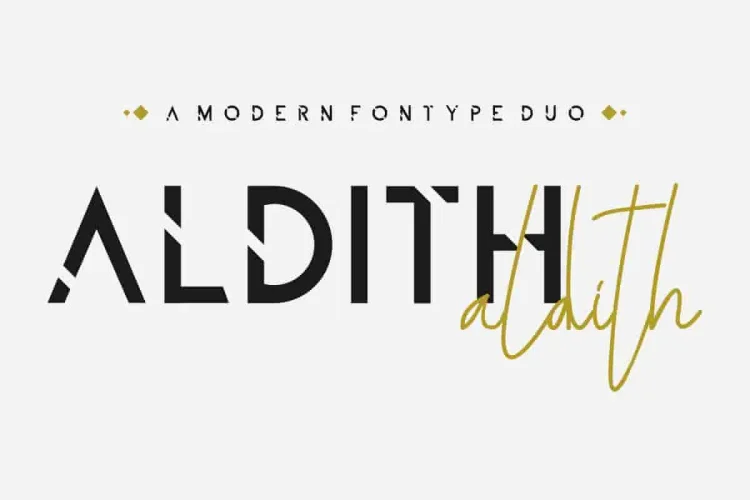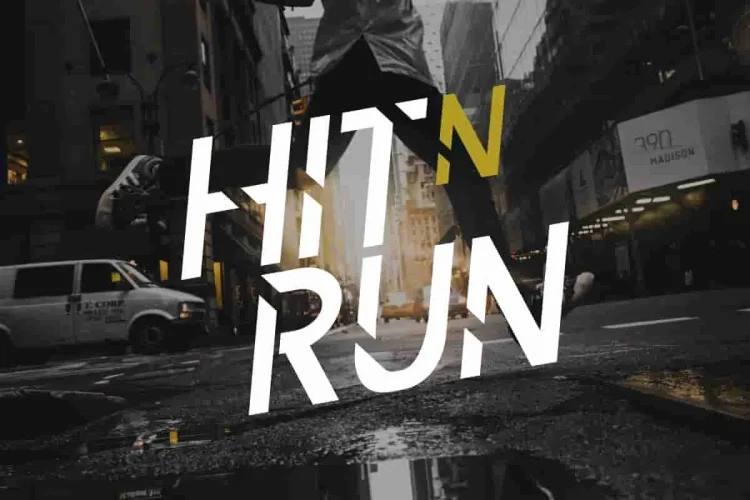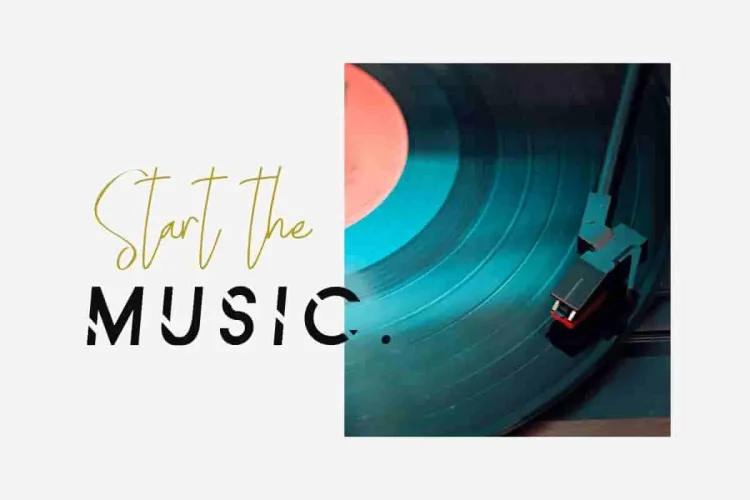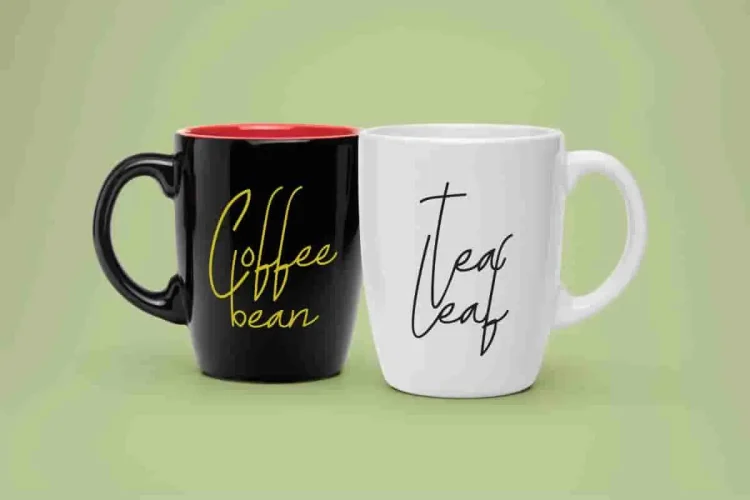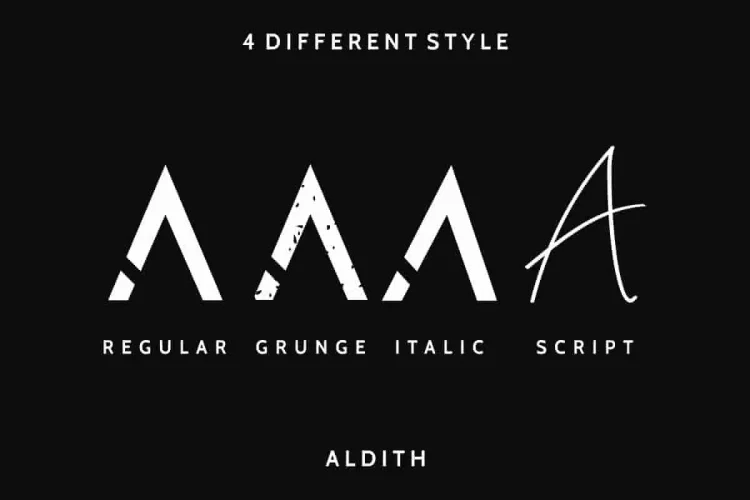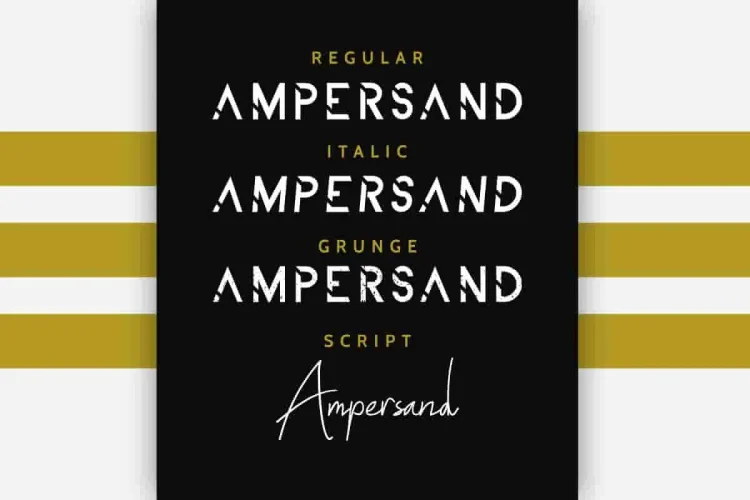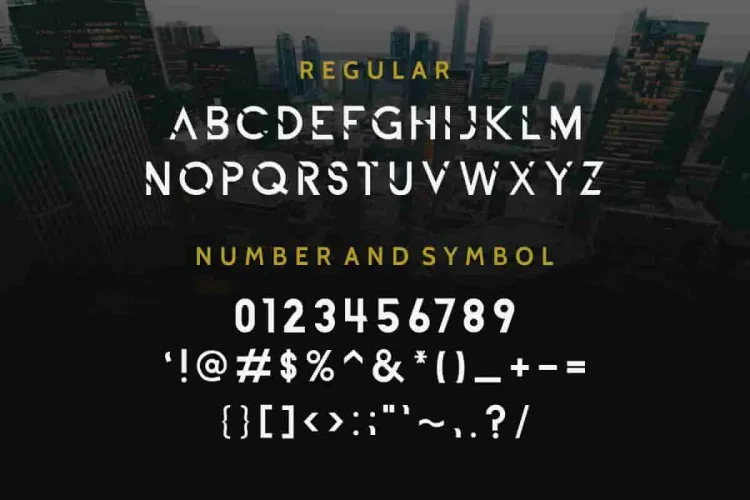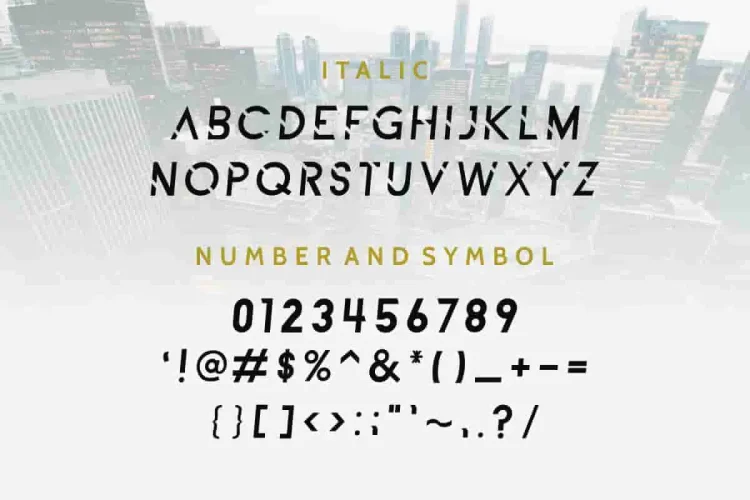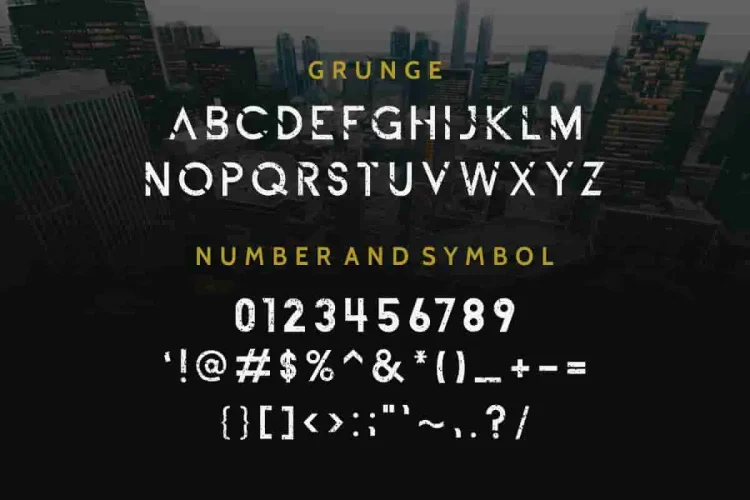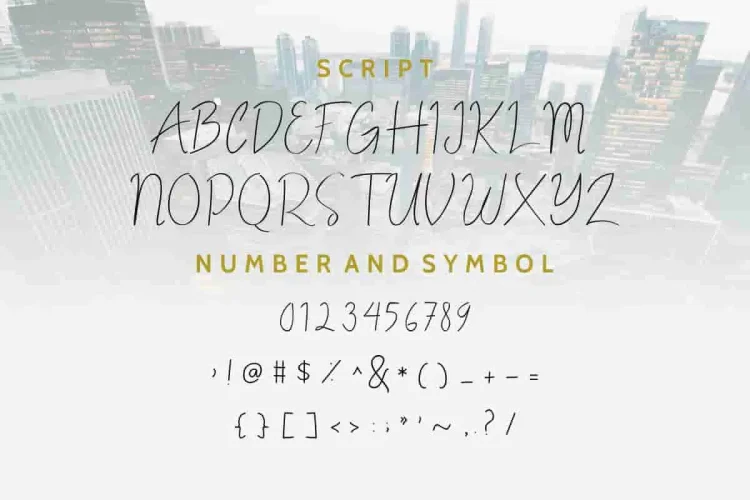
ALDITH Handwritten Font Duo
What’s up guys! Introducing our newest font : ALDITH ! It’s a QUARTET font! contains script, italic, grunge and regular.
This is a combination of several styles : stylish handwritten script, vintage grunge, elegant italic and modern fonts, It has a fresh, unique, handmade and exclusive glyph.
✍️ Four Styles, One Unified Identity:
• Regular: Clean and bold — a modern sans serif base that gives structure and clarity to logos, business cards, and web headers.
• Grunge: A textured twist for a vintage, raw look. Perfect for music covers, posters, or anything that needs character.
• Italic: Sleek and refined. Adds a stylish flair to branding or upscale packaging.
• Script: A smooth, flowing handwriting font with a signature vibe — ideal for beauty brands, invitations, and personal logos.
Whether you’re designing logos, branding kits, social media content, or wedding invitations, ALDITH adapts beautifully. The Regular style is clean and professional, while the Grunge variant adds a vintage, textured feel for edgier projects. The Italic version brings subtle elegance, and the Script style offers a natural handwritten touch—perfect for personal and creative designs.
If you’re looking for a stylish font duo with the flexibility of four powerful styles, ALDITH is your answer. Boost your designs with this perfect fusion of handcrafted charm and modern simplicity.